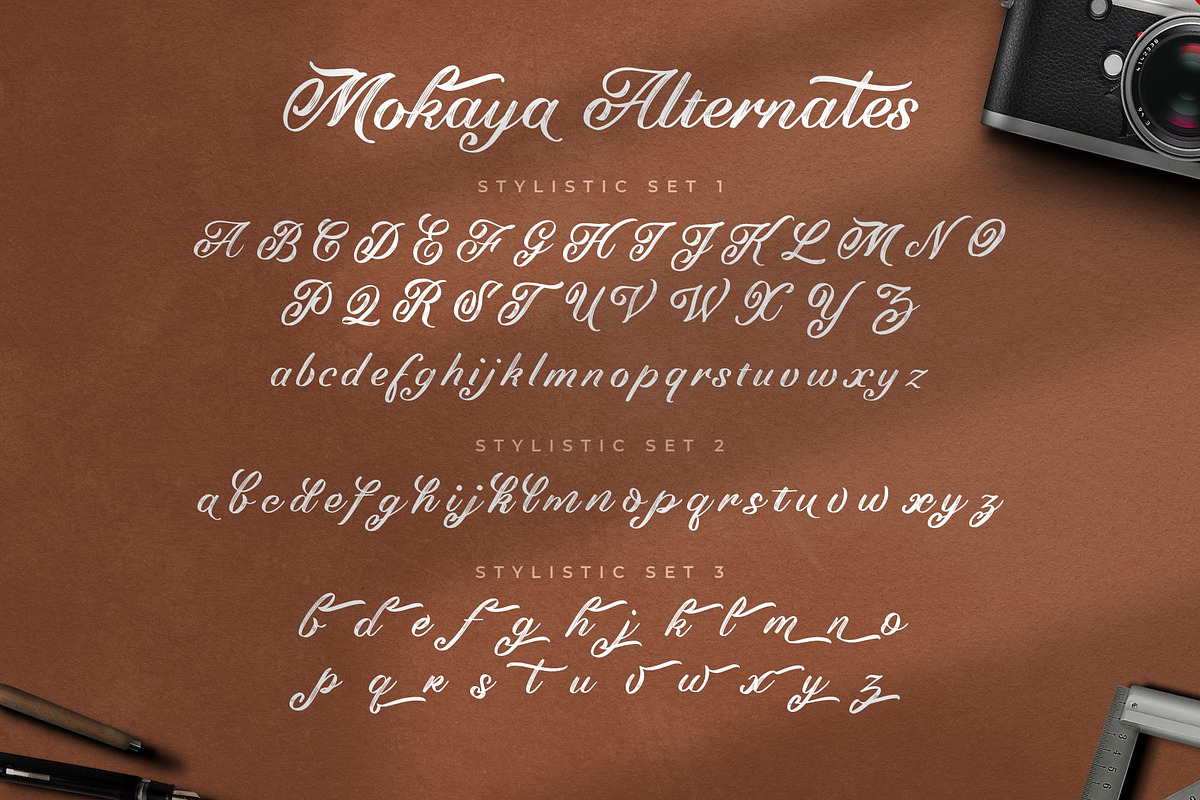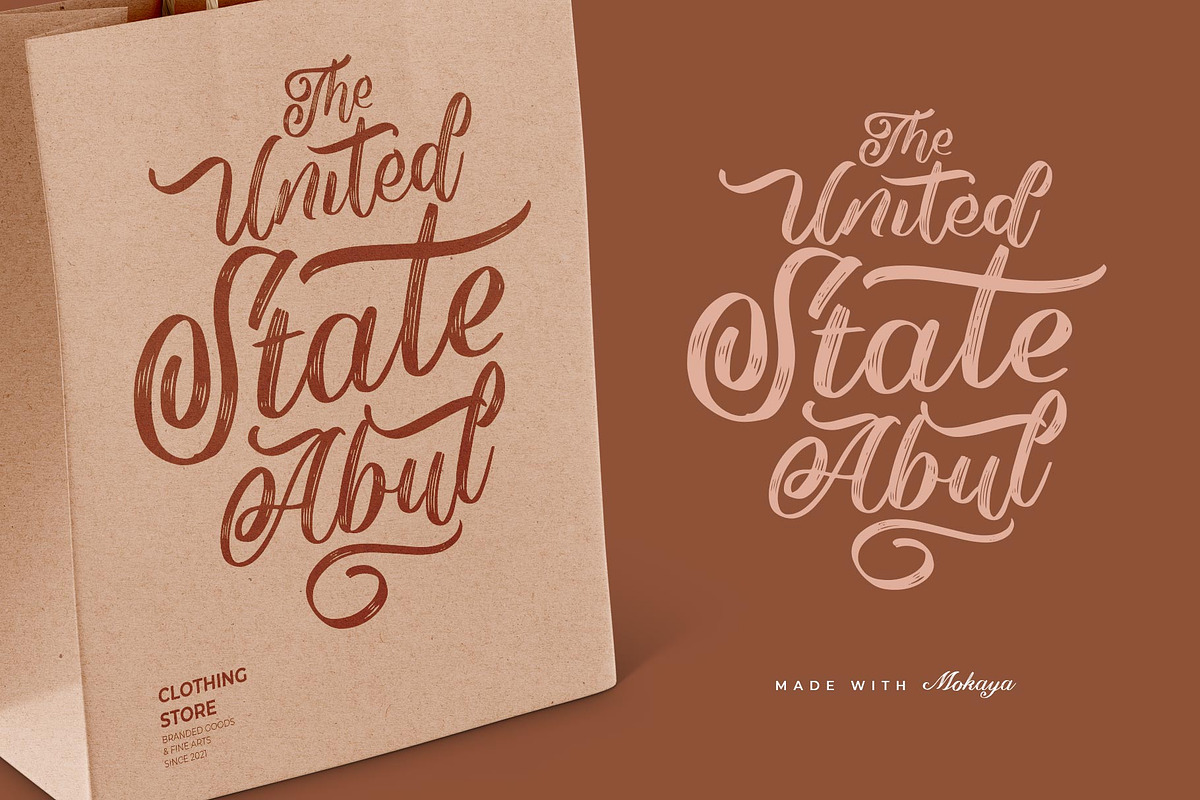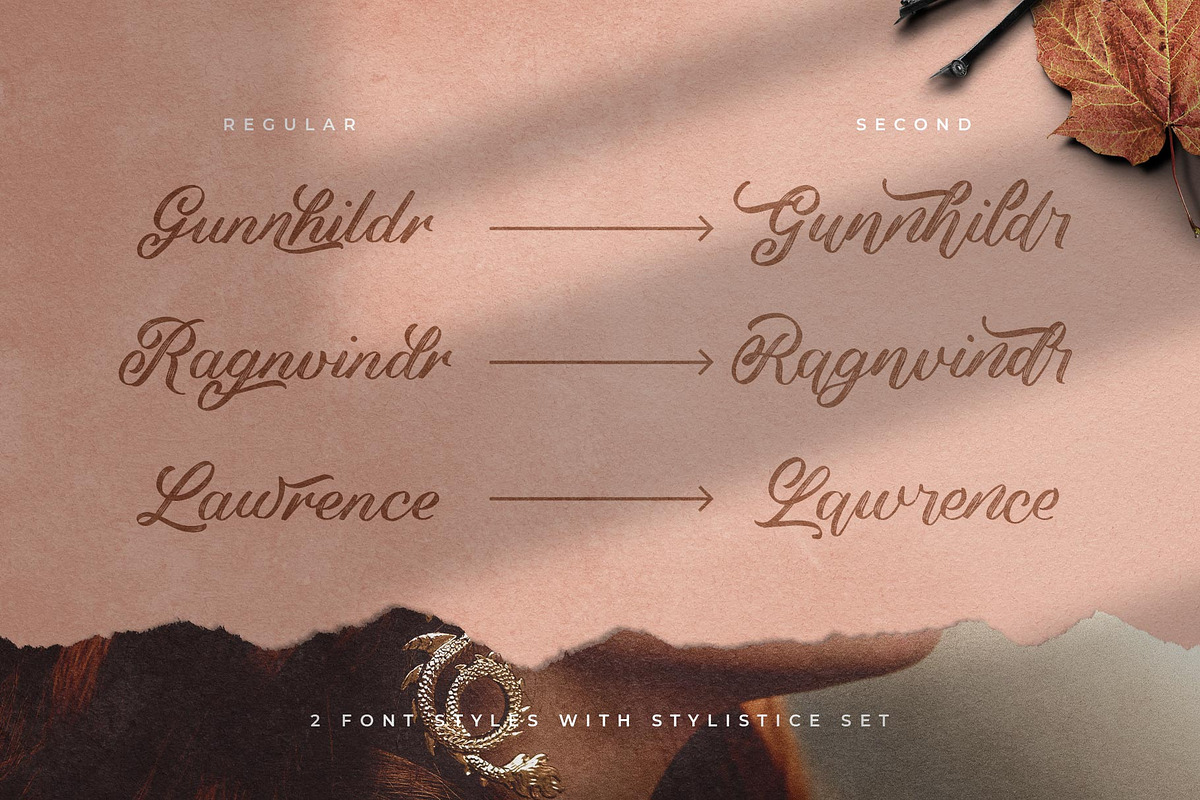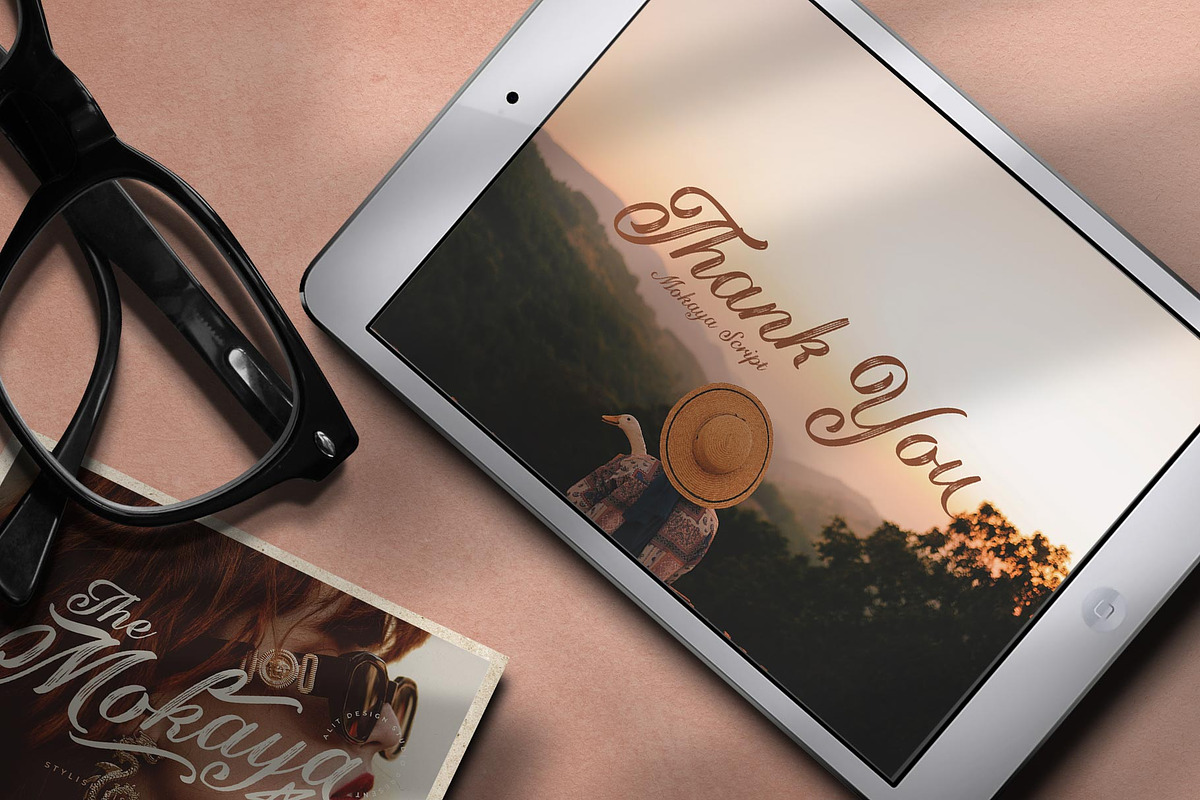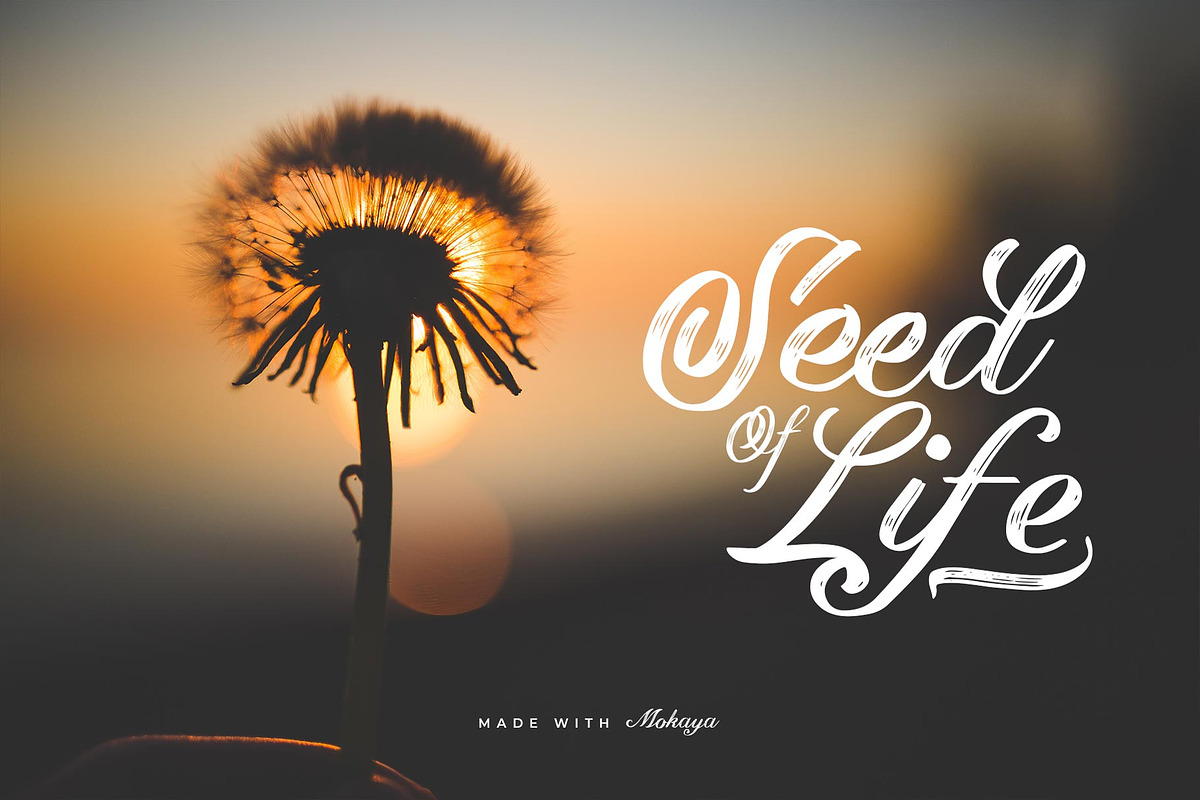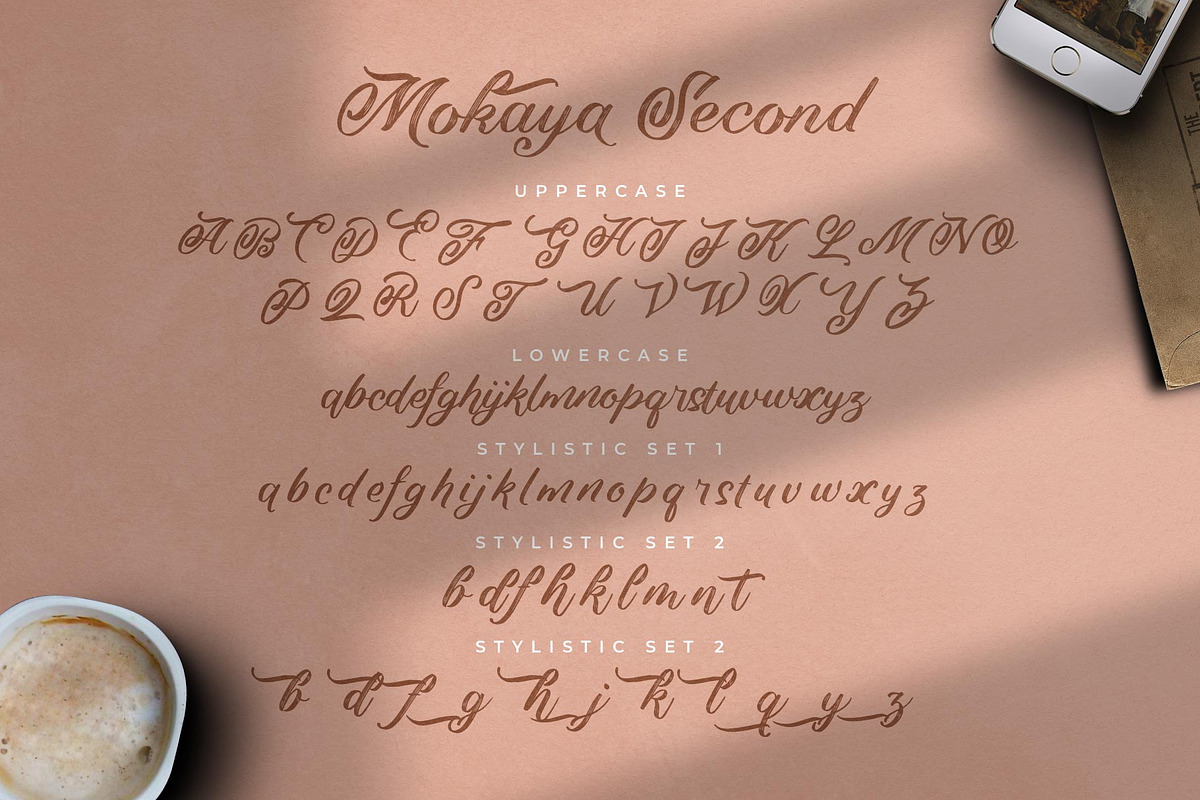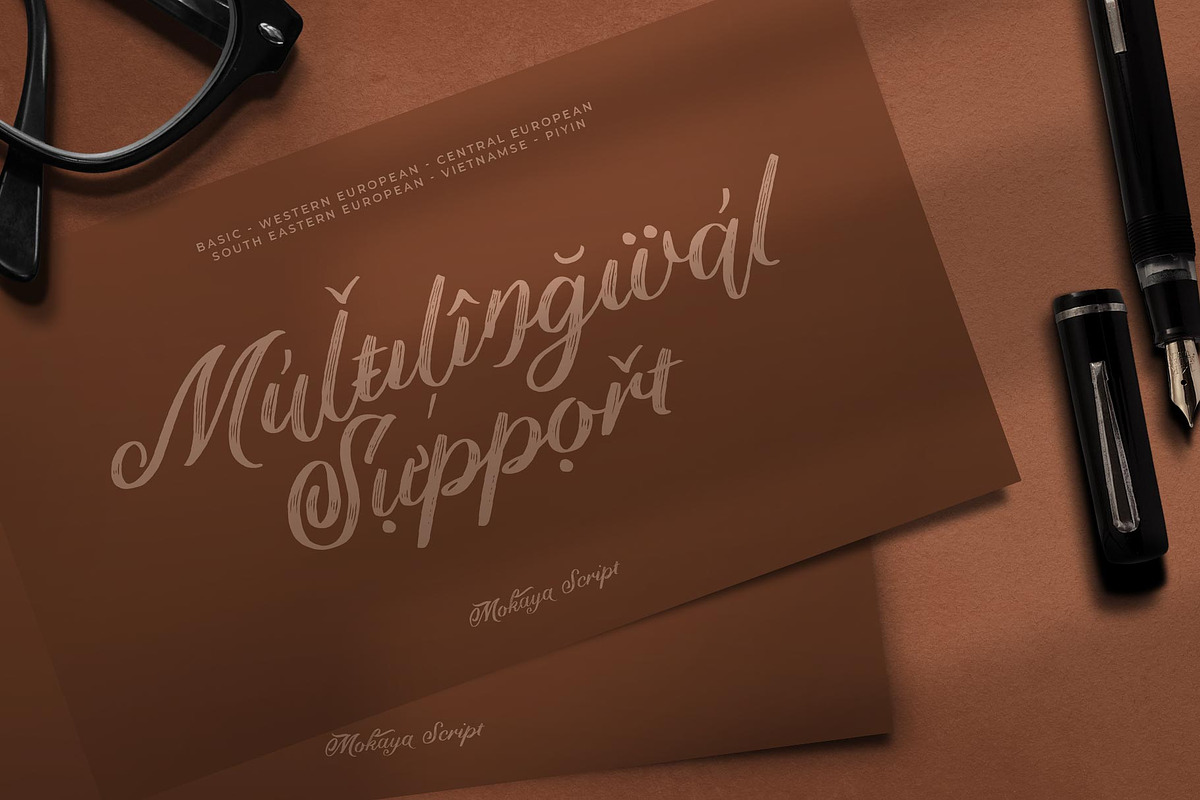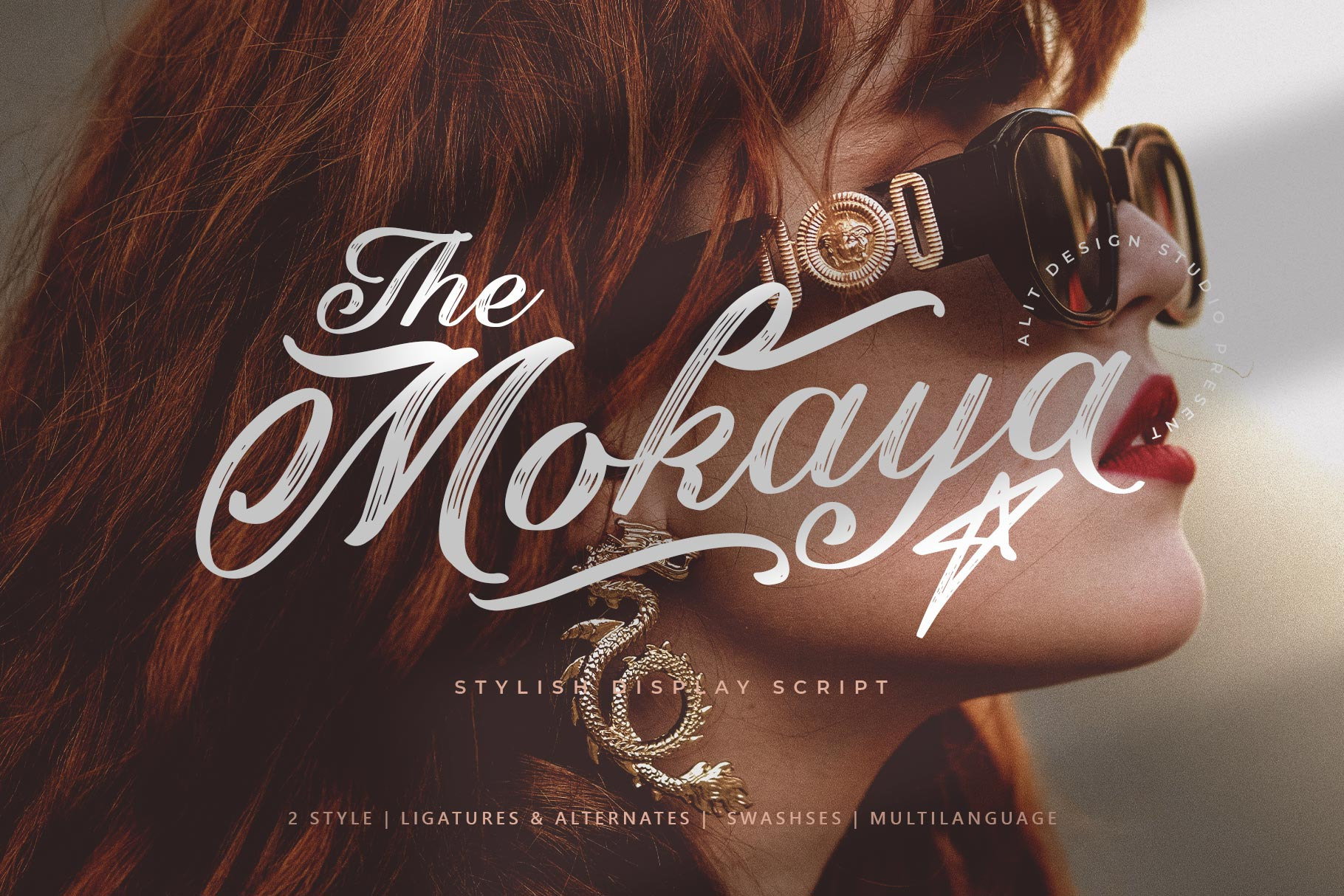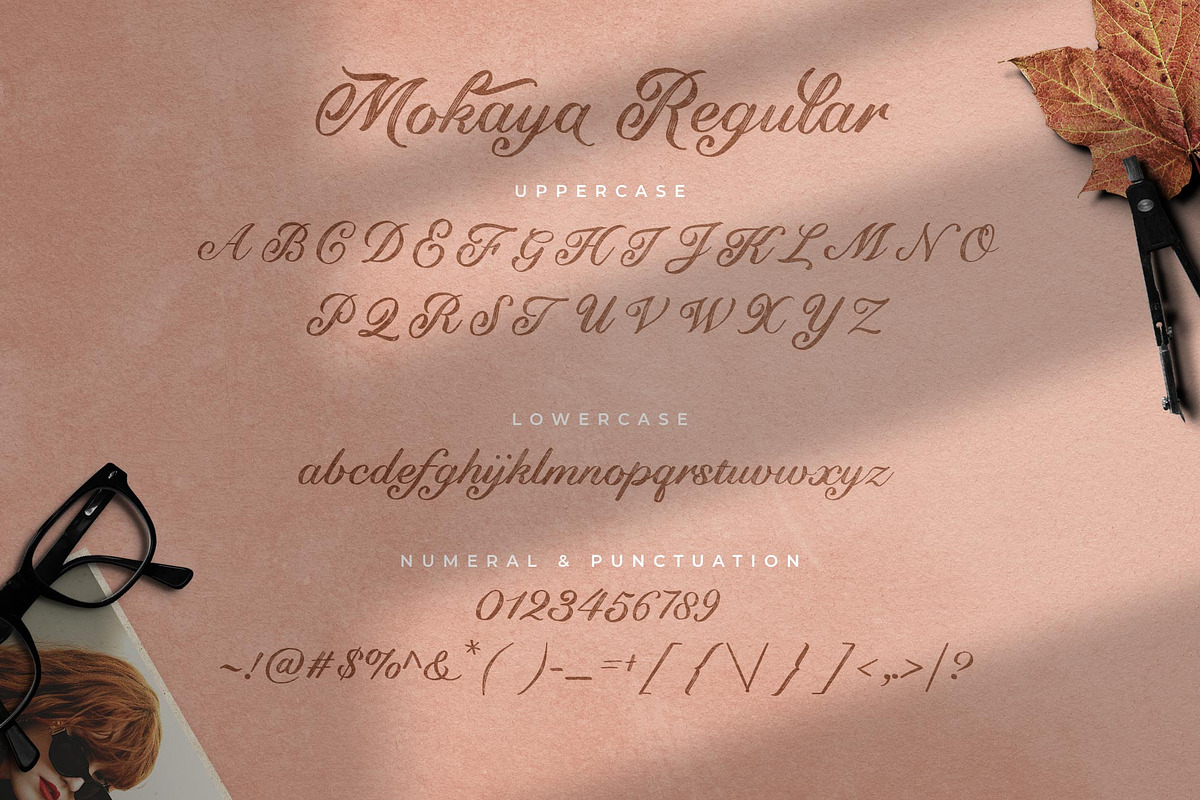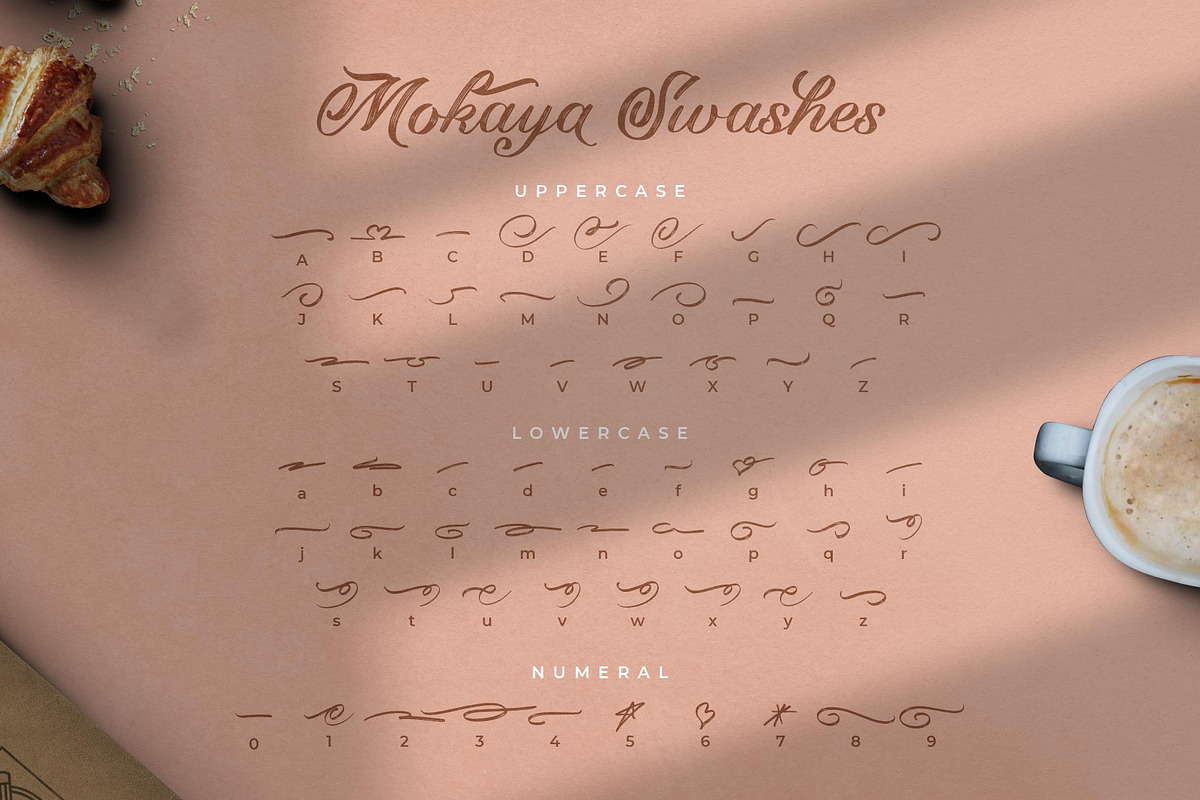
Mokaya Script Font
Mokaya Script Font is a very beautiful and unique signature script Font that comes with a very beautiful ligature surprise with different font characters so it is perfect for your design needs such as printed quotes, invitation cards, social media, product packaging, your website and more!